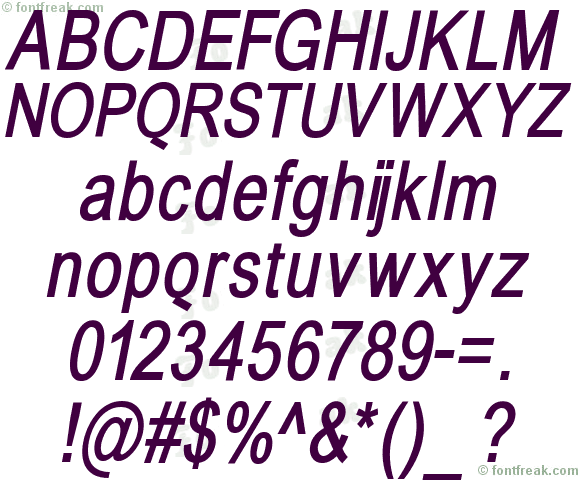
BabelSans-Bold
About BabelSans-Bold
BabelSans-Bold by Manfred Klein is a striking sans-serif typeface that embodies modernity and clarity. Characterized by its bold stroke weight, this typeface offers a confident presence, making it ideal for a variety of design applications. The clean lines and minimal contrast create a harmonious visual experience, giving it a contemporary feel that is both approachable and professional. The spacing is well-balanced, ensuring readability at various sizes, which adds to its versatility.
This font is particularly suited for use in promotional materials such as restaurant menus, where its boldness can emphasize dish names and highlights. It is also an excellent choice for movie posters, providing a strong focal point that can draw viewers in. Additionally, BabelSans-Bold works well in branding designs for small businesses, offering a modern aesthetic that can enhance logos and marketing collateral. Content creators will find it useful for online graphics, ensuring that messages stand out in an engaging manner.
The target audience for BabelSans-Bold includes graphic designers looking for a reliable typeface that balances style and functionality, small business owners aiming to establish a strong brand identity, and content creators who need a bold yet clean font for their digital projects.
What sets BabelSans-Bold apart is its ability to convey strength without sacrificing legibility. Its contemporary design makes it a perfect choice for those who want to make a statement while maintaining a polished look. Whether you’re crafting eye-catching advertisements or designing sleek websites, the BabelSans-Bold font free download offers a versatile solution that can elevate your creative projects.